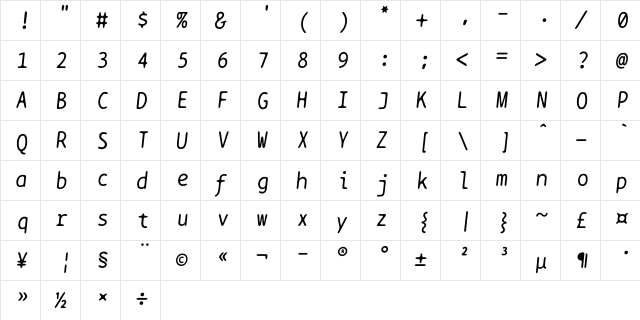
BPtypewrite Italic
Design Context for BPtypewrite Typeface
BPtypewrite is a composed and adaptable typeface that performs quietly and consistently across a wide range of design contexts. Its italic angle brings a sense of urgency and motion to the letterforms.
Pro Tip: Use BPtypewrite for emphasis, pull quotes, and subheadings where its slanted energy can add rhythm to the layout.